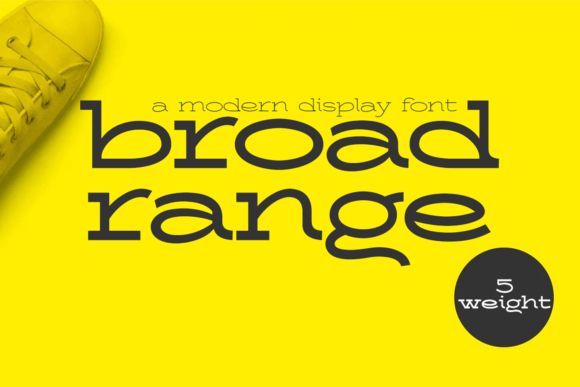
Unlock the Power of Vintage Chic: Discover the Broad Range Font
There’s nothing quite like the thrill of staring at a blank canvas, waiting for inspiration to strike. The blank page stares back, taunting you with its emptiness. And then, it happens – a spark of creativity ignites, and you’re off and running. You envision the perfect design, with bold lines, vintage charm, and a dash of sophistication. The Broad Range Font is the perfect companion for this moment, bringing your vision to life with its unique blend of cool and vintage style.
As a designer, you’re always on the lookout for the perfect font to elevate your creations. The Broad Range Font is a game-changer, offering endless possibilities for posters, flyers, and prints. Its versatility and timeless appeal make it a valuable addition to any designer’s toolkit.
Broad Range Font Review
I recently had the chance to work with the Broad Range Font, and I’m sharing my honest thoughts with you. Here’s what I think:
- The font’s versatility is impressive. It’s perfect for both digital and print media, and it adapts well to different screen sizes.
- The design is modern and sleek, with clean lines and a professional look that’s sure to impress.
- The font family includes a wide range of weights and styles, making it easy to find the perfect fit for your project.
- The font may not be ideal for projects that require a more traditional or vintage look.
- Some users may find the font too minimalist, which can make it difficult to read in certain contexts.
- The font’s versatility can also be a limitation, as it may not stand out in crowded design spaces.
Overall, I think the Broad Range Font is a solid choice for designers who want a modern, versatile font that’s easy to work with. While it may not be perfect for every project, it’s definitely worth considering for your next design endeavor.
Tips for Getting the Most Out of Broad Range Font
Experiment with different font sizes and styles to achieve the desired visual effect.
Combine Broad Range Font with other design elements to create a unique and eye-catching design.
Use Broad Range Font to add a touch of elegance and sophistication to your designs.
Broad Range Font is ideal for:
Designing elegant and sophisticated business cards and letterheads.
Creating visually appealing website headers and footers.
Adding a touch of elegance to presentations and reports.
Alternatives to Broad Range Font
Montserrat is a sans-serif font designed for urban environments. It’s highly legible and works well in a wide range of applications, from body text to headings. When to use: Montserrat is ideal for modern and minimalist designs where a clean and modern feel is desired.
Montserrat compares to Broad Range Font as it is more versatile and modern. While Broad Range Font has a broader range of weights and styles, Montserrat’s simplicity and modern design make it a more suitable choice for contemporary designs.
Lato is a sans-serif font designed for digital media. It’s highly legible and works well in a wide range of applications, from body text to headings. When to use: Lato is ideal for digital products, websites, and applications where a clean and modern feel is desired.
What is the recommended font size range for using Broad Range Font?
The recommended font size range for using Broad Range Font is between 10pt and 24pt. This range allows the font to display its best characteristics and readability. However, you can use the font at any size, and the design application will automatically adjust the font’s rendering to ensure optimal display.